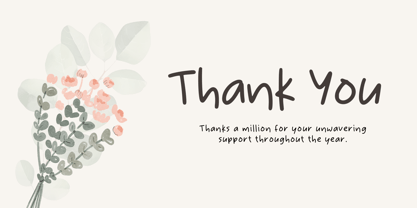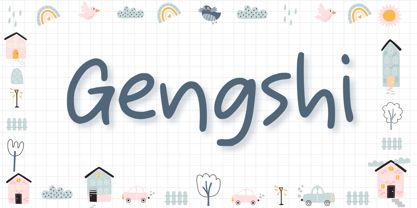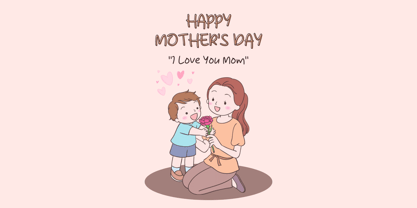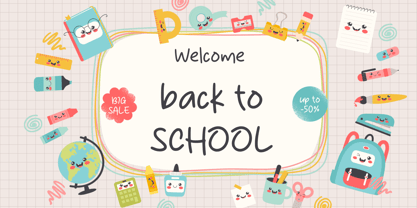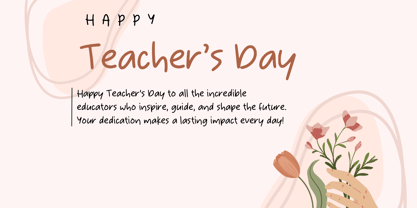
Gengshi
by Aisyah
The Gengshi Font Family was designed by Nur Aiysah Amalia and published by Aisyah. Gengshi contains 1 styles. More about this family
Gengshi Handwriting Font is a stylish, natural-looking script that mimics authentic handwritten strokes. Its smooth, flowing lines and casual elegance make it perfect for personal notes, creative projects, invitations, and branding materials. The font adds a warm, personal touch to any design.
Designers: Nur Aiysah Amalia
Foundry: Aisyah